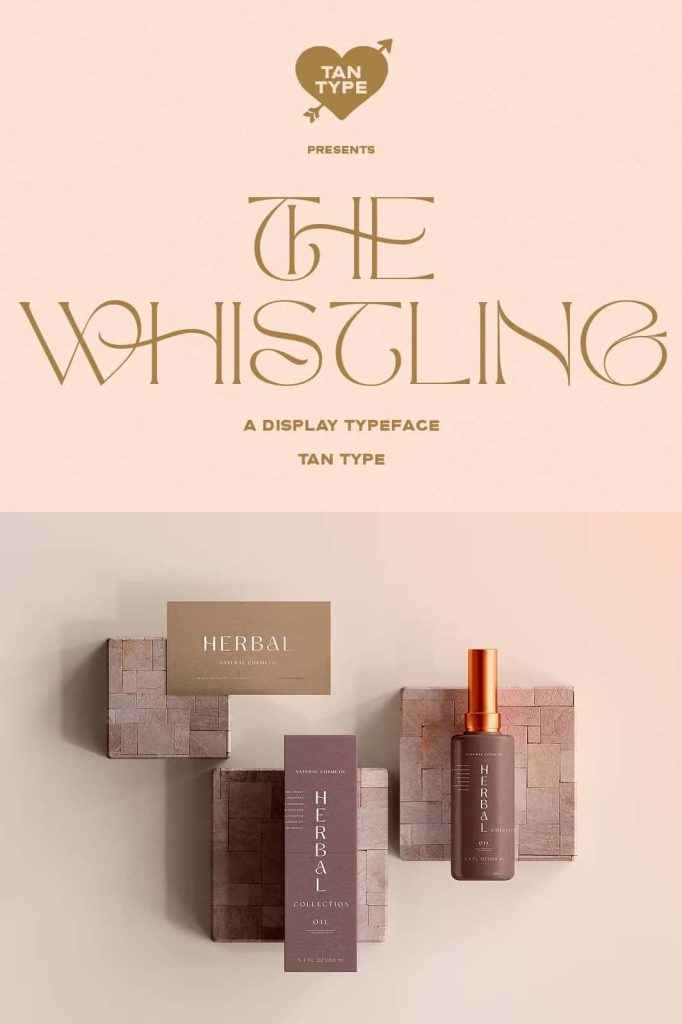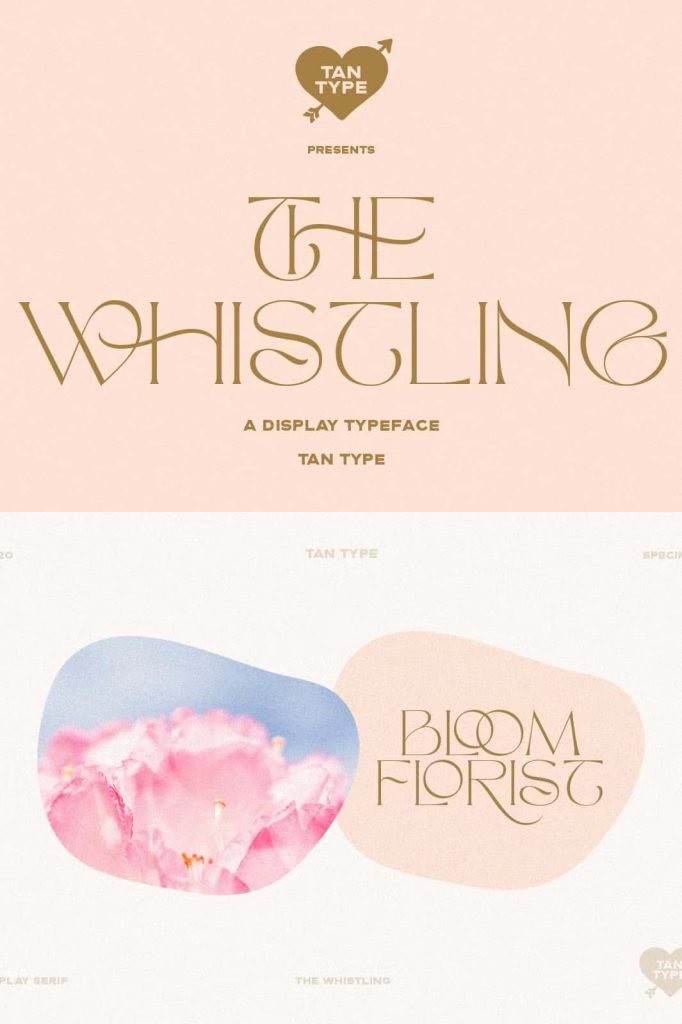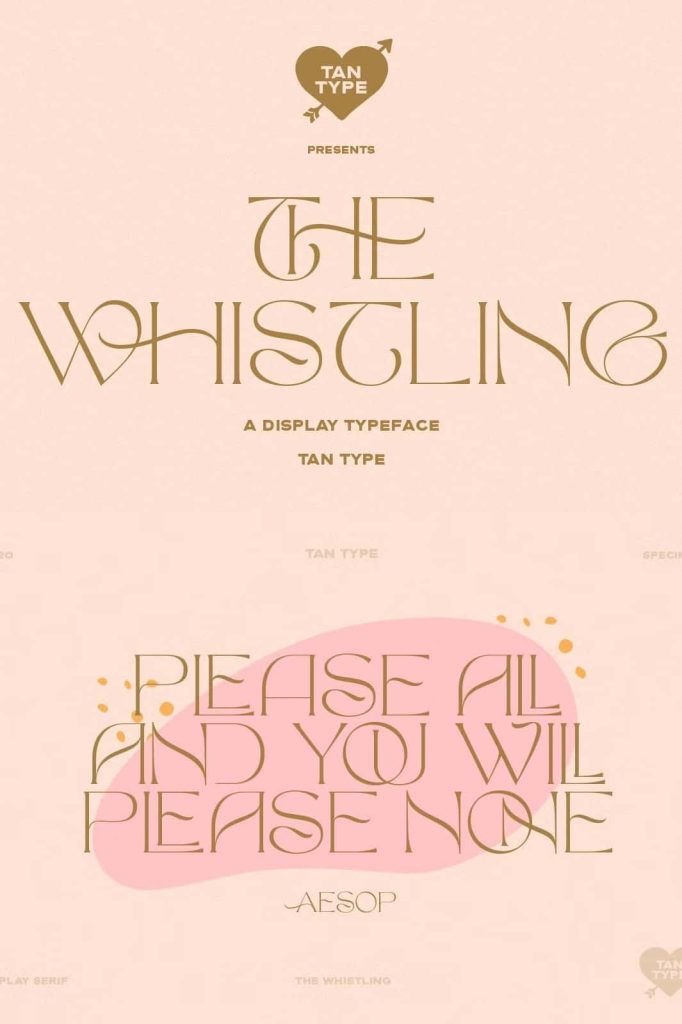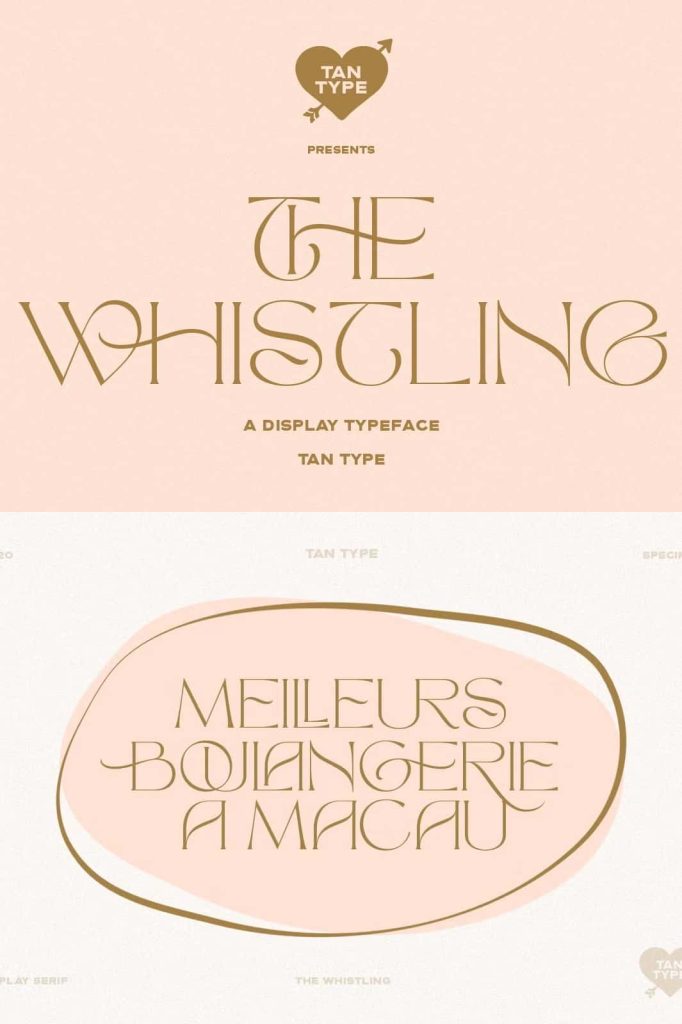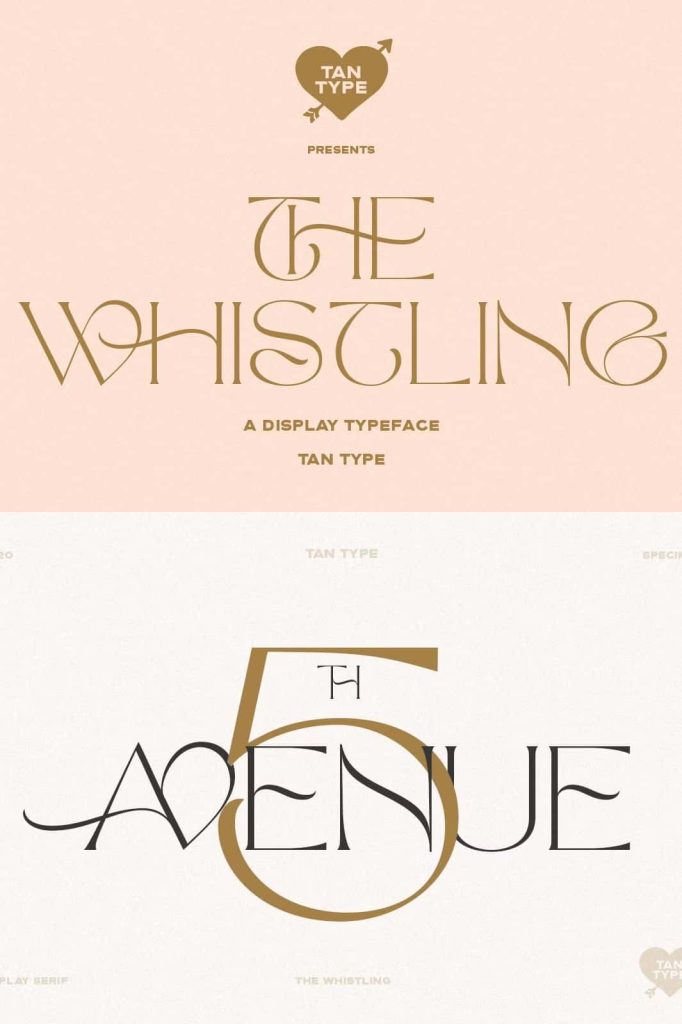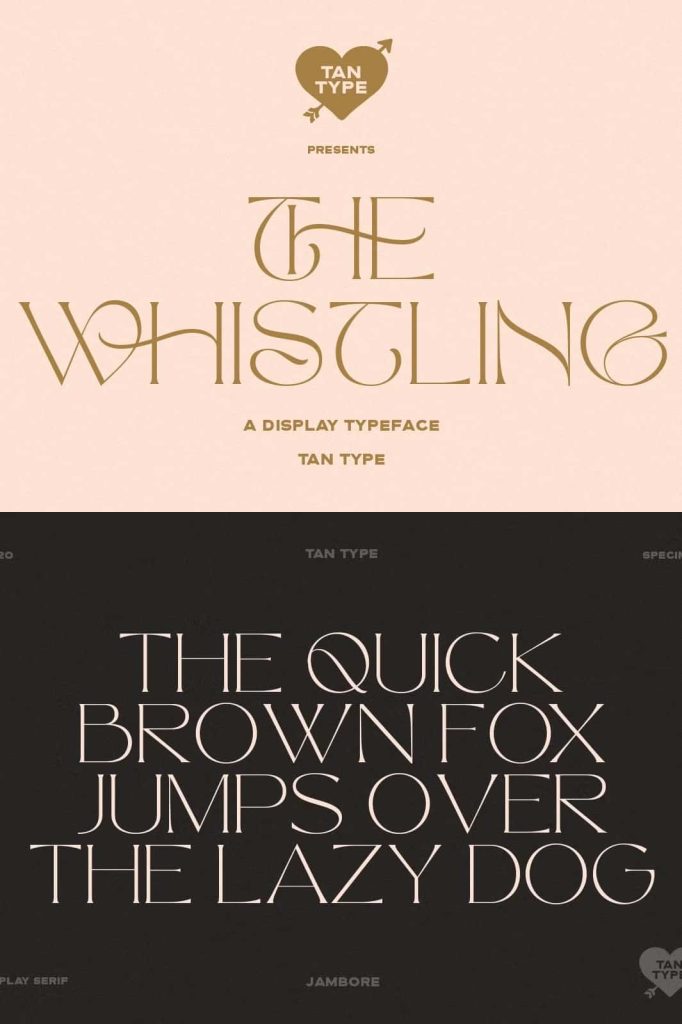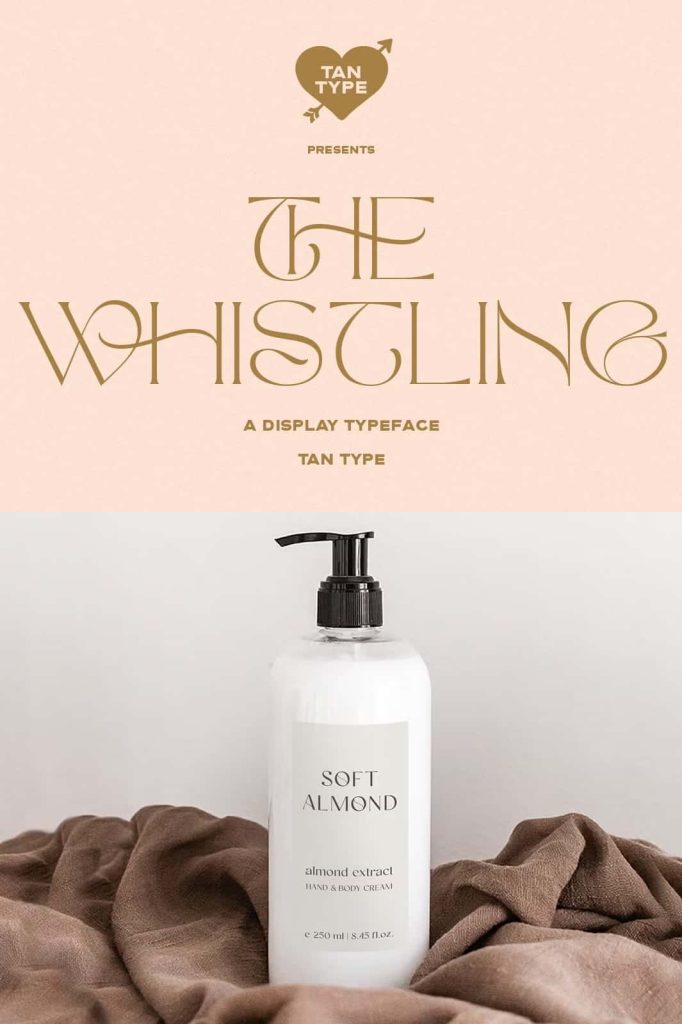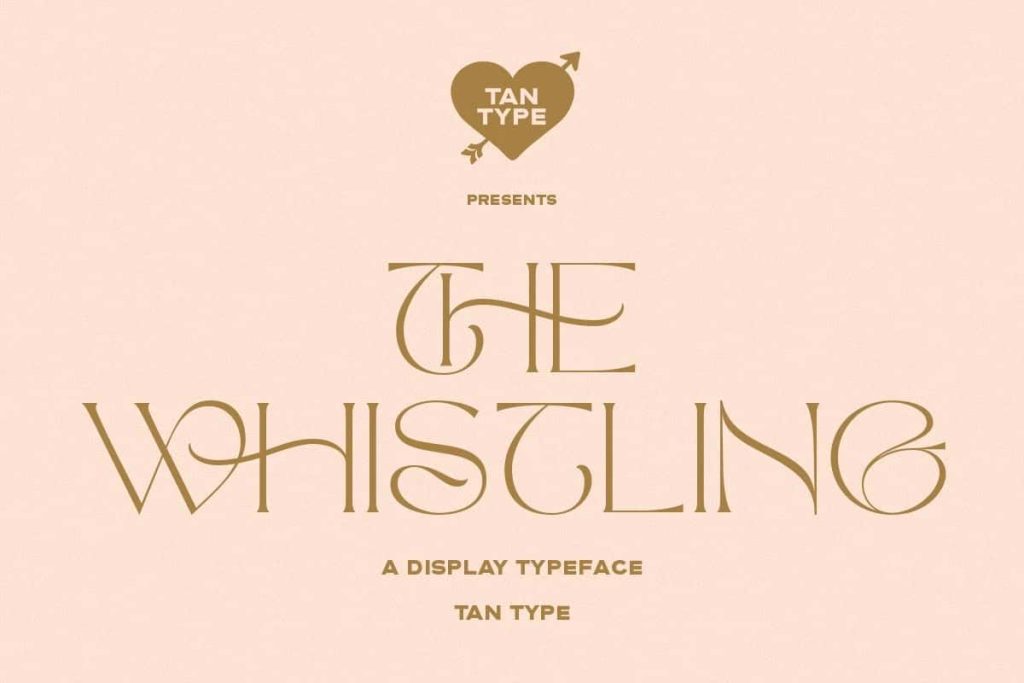
TAN – The Whistling
Whistling is classy without being snobby. Suitable if you need if you want to add a bit of luxury or even quirks to your projects. It has over 50 ligatures and even more stylistic alternates.